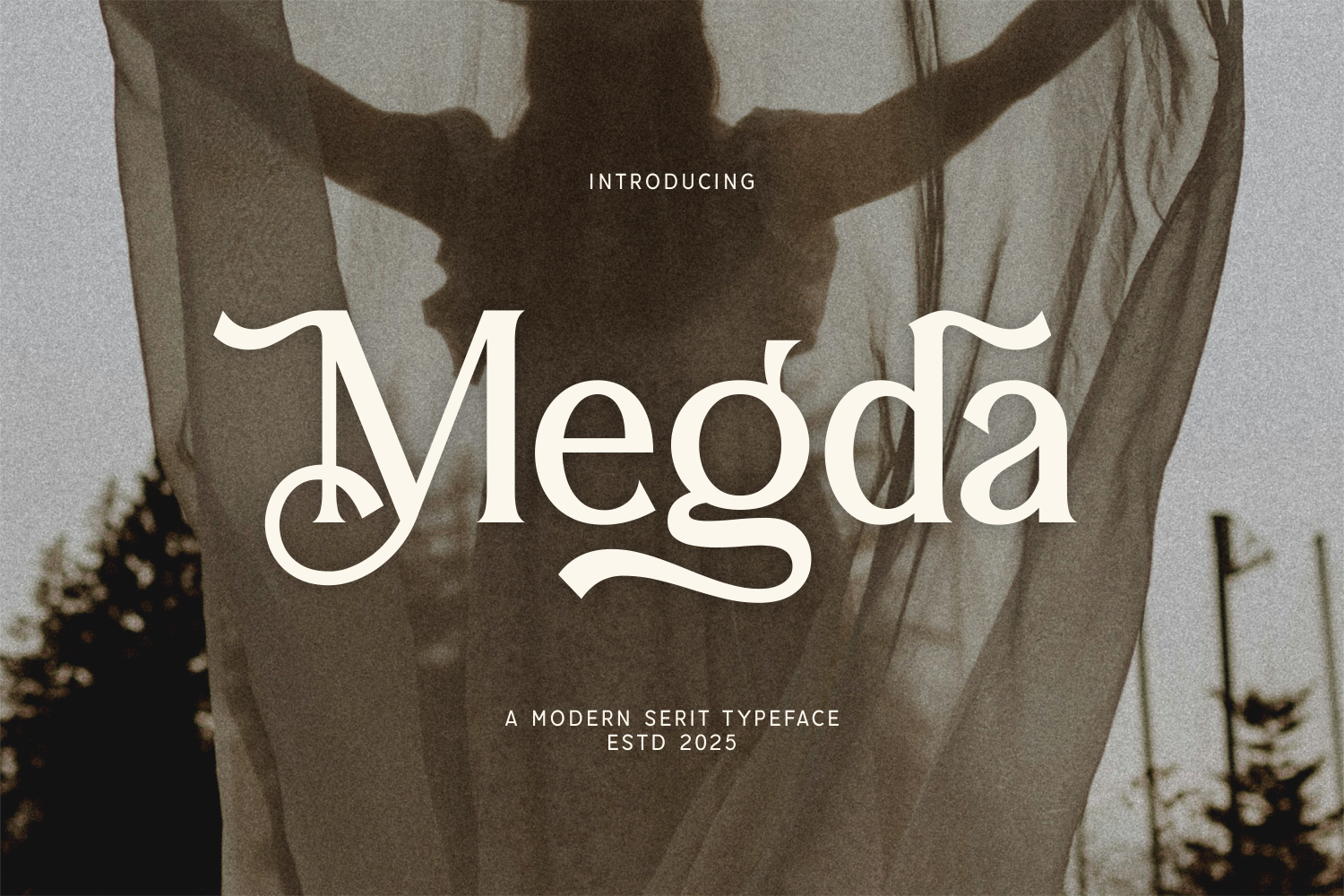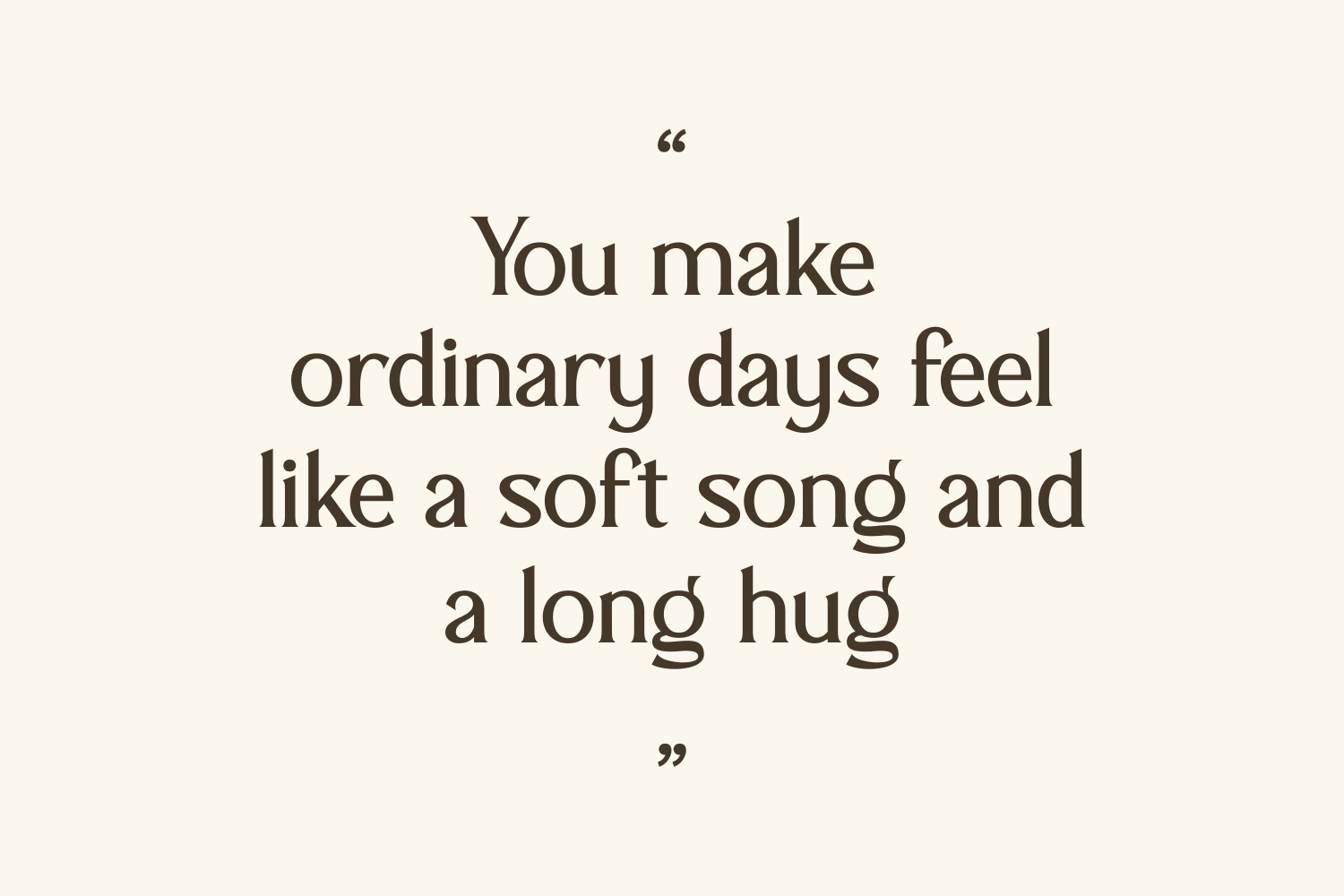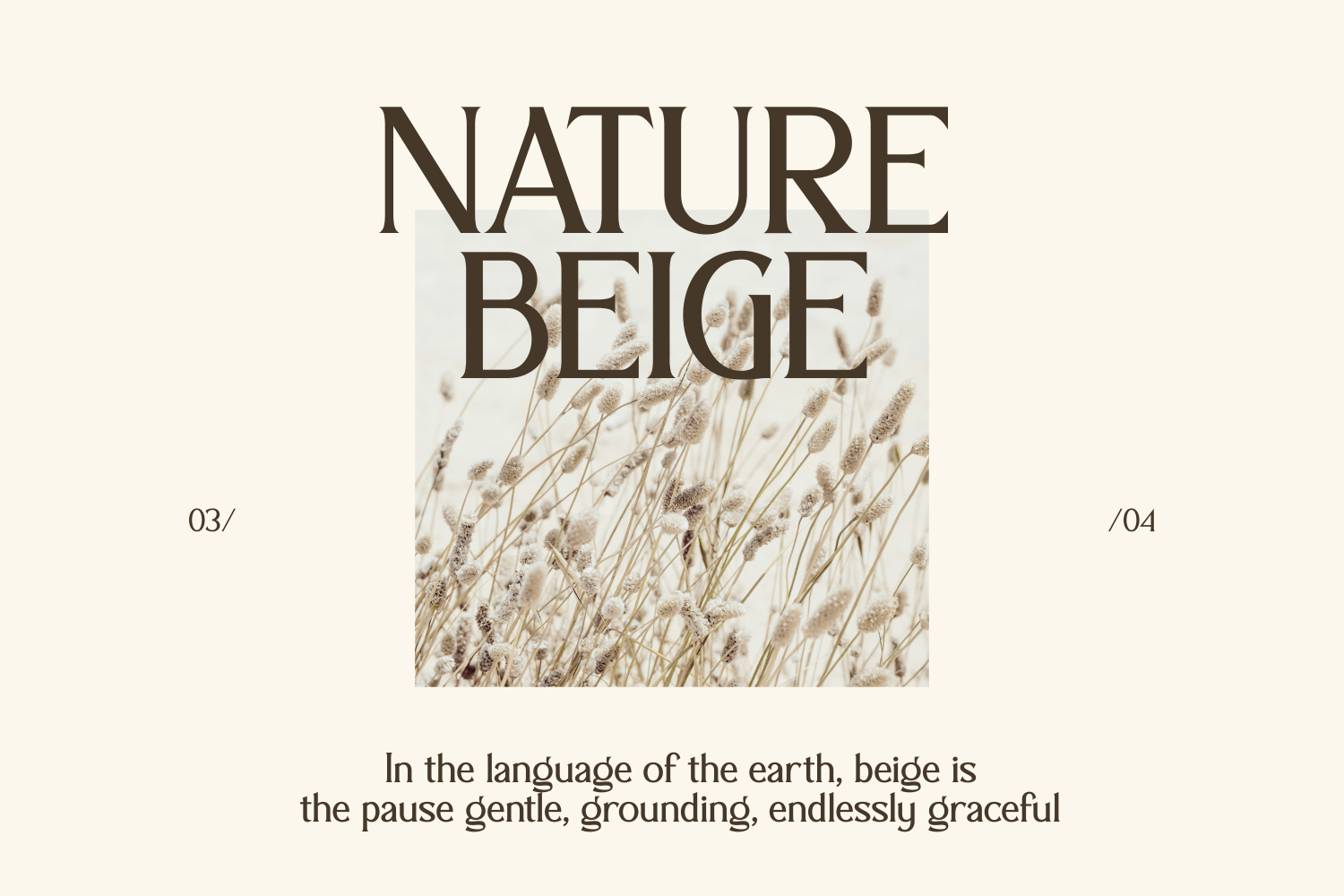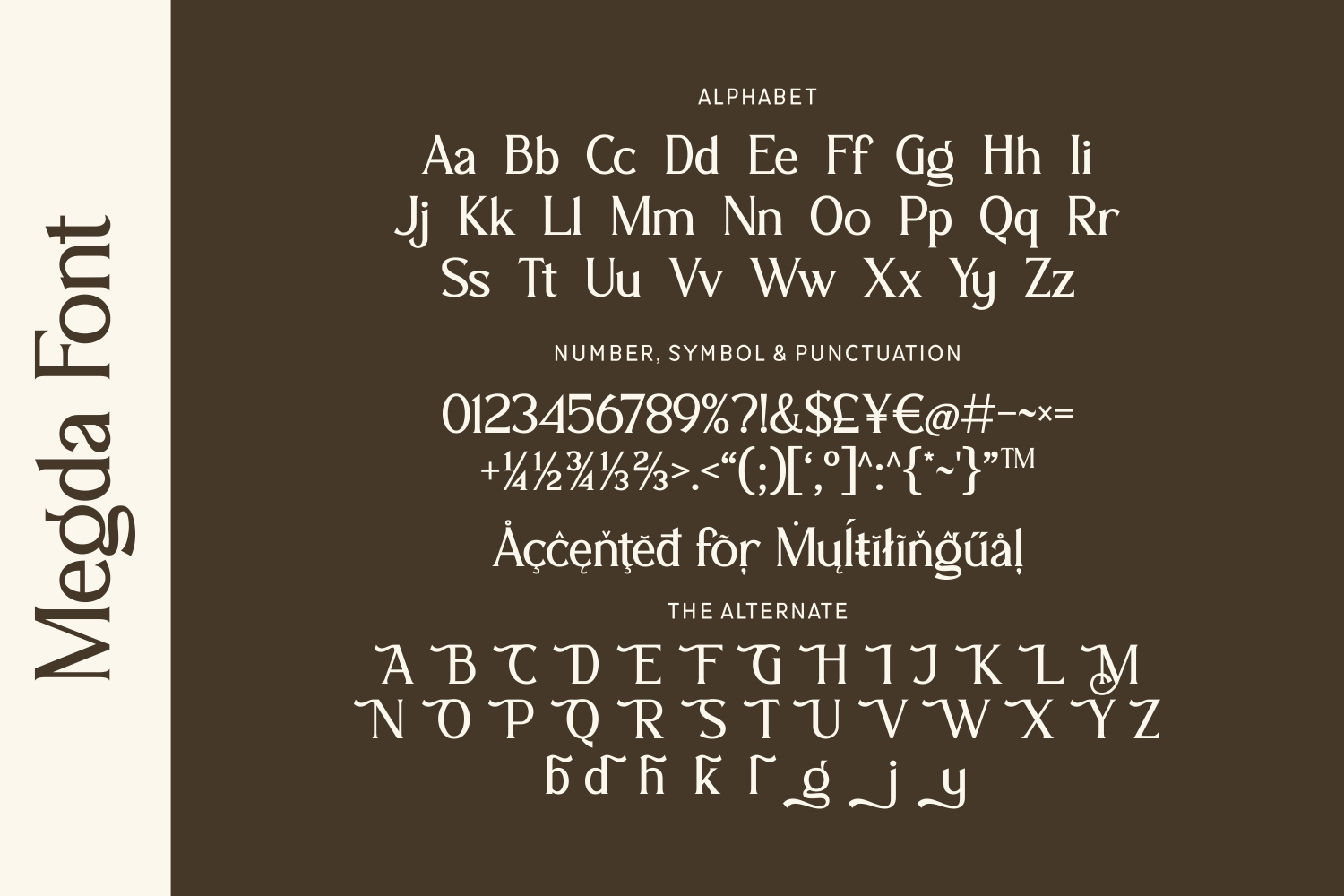
Megda is a modern serif typeface with a dramatic, artistic soul. It balances historical inspiration with contemporary refinement, creating a sense of charm, mystery, and sophistication in every word. Perfect for those seeking a unique serif that tells a story.